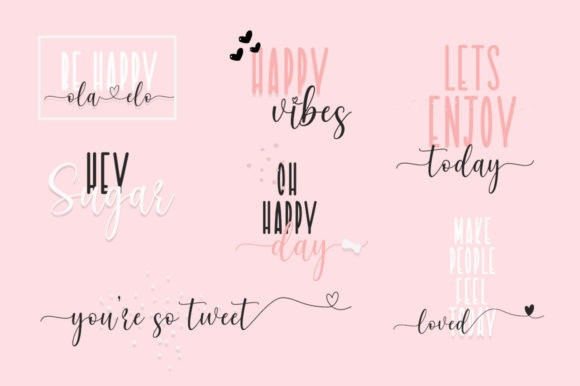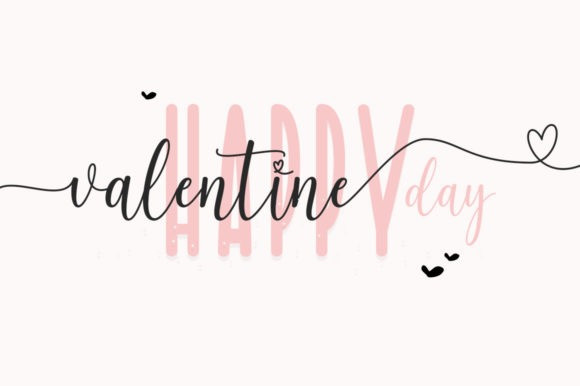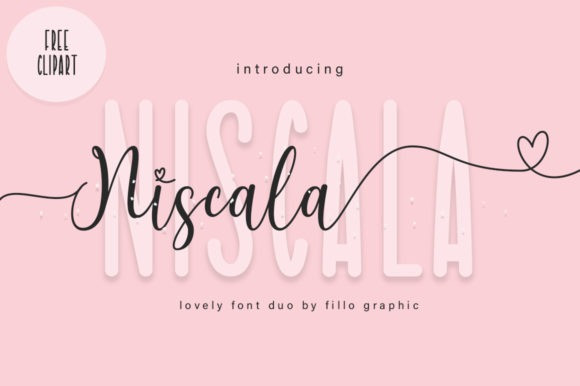
Niscala Font
Niscala Font, consists of two fonts designed to complement each other perfectly. Together or apart, these fonts are ideal for adding a chic and cheery touch to your crafts. Niscala is PUA encoded which means you can access all glyphs and swashes with ease!